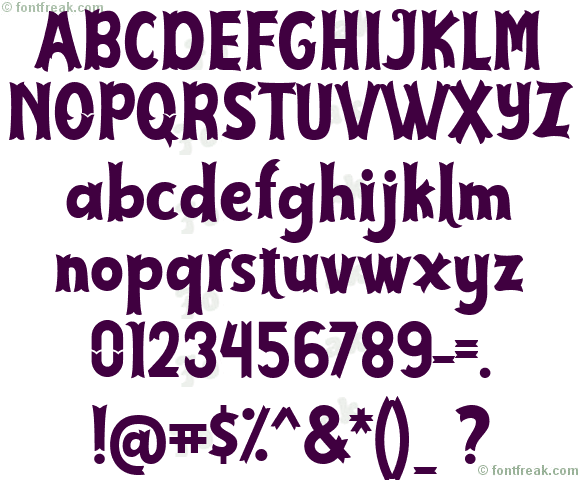
Cirquesa
About Cirquesa
Cirquesa, designed by Situjuh Nazara in 2018, is a unique display typeface that captures attention with its playful and whimsical character. This font falls into the decorative category, characterized by its bold, rounded forms and expressive strokes. The stroke weight is consistent yet slightly varied, giving it a dynamic quality while maintaining readability. The letters exhibit a moderate contrast, which enhances their visual impact, making Cirquesa an ideal choice for projects that require a touch of creativity.
The spacing in Cirquesa is well-balanced, allowing for clarity in both large and small text applications. Its charming design is adorned with subtle, decorative elements that add to its artistic flair without overwhelming the viewer. This makes Cirquesa particularly suitable for a variety of creative use cases. It shines in wedding invitations, where its inviting nature sets a joyful tone. Additionally, it works wonderfully for children’s books, where the playful design can captivate young readers. Restaurant menus can also benefit from its lighthearted style, making dishes appear more appealing. Furthermore, Cirquesa is perfect for event posters, where it can draw attention and convey a sense of fun.
This font is especially targeted towards graphic designers, small business owners, and content creators looking to infuse their projects with personality and charm. Its versatility ensures that it can be utilized across various design mediums, enhancing the overall aesthetic.
What truly sets Cirquesa apart is its ability to evoke a sense of joy and creativity, making it an excellent choice for any project that aims to engage and entertain. With its unique visual characteristics and free availability, the Cirquesa font free download is a valuable addition to any designer's toolkit.